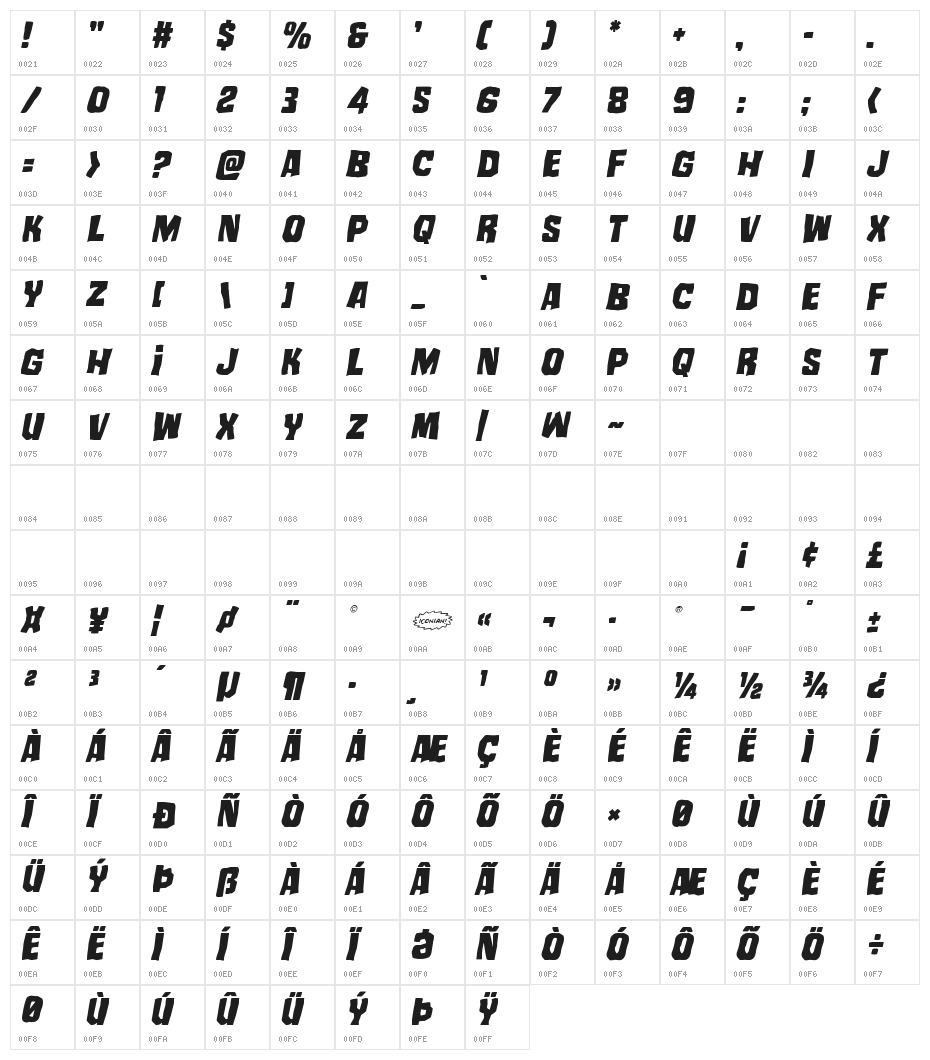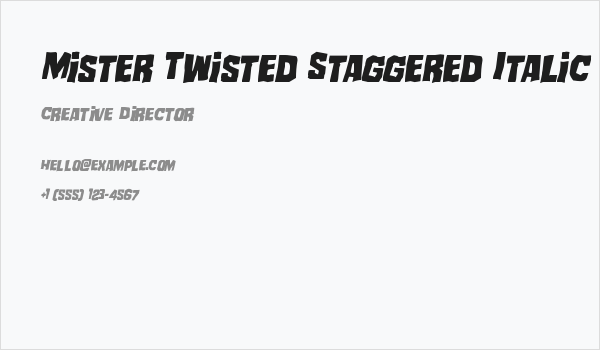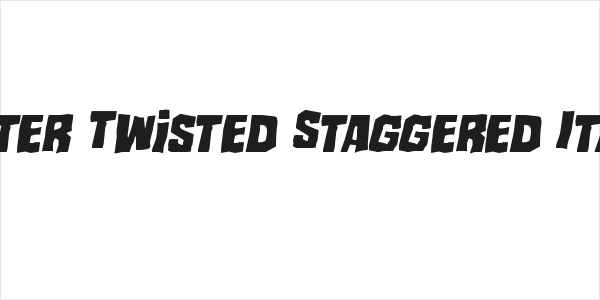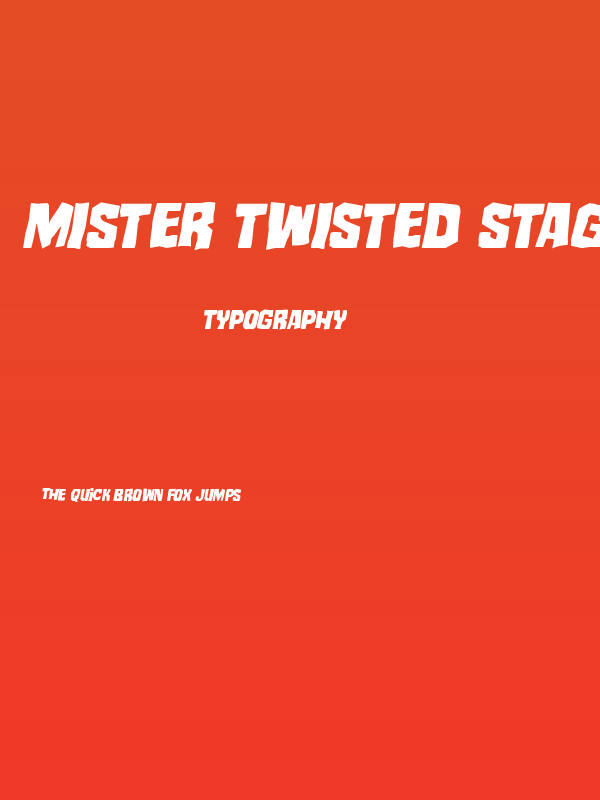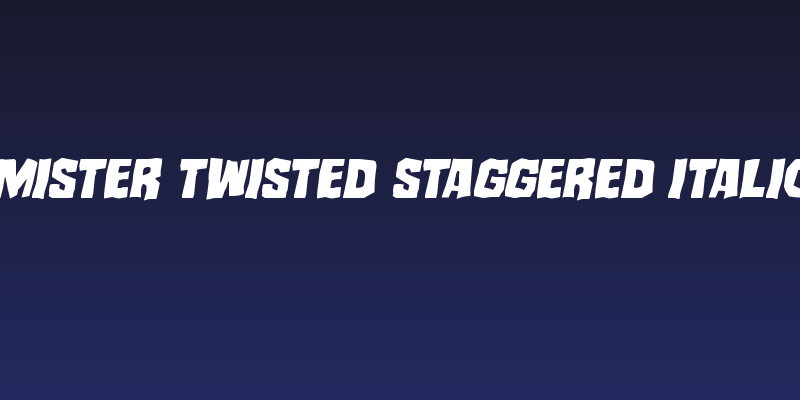
Mister Twisted Staggered Italic Font
Mister Twisted Staggered Italic Description
This font features a bold and dynamic style with a twisted, staggered appearance that gives it a unique and eye-catching look. The characters are heavily stylized with irregular edges and a slanted, italicized form, creating a sense of movement and energy. The uppercase and lowercase letters maintain a consistent design, while the numbers and special characters follow the same bold and twisted aesthetic. This font is perfect for projects that require a strong visual impact and a touch of creativity.
| Proposed Projects | Ideal for posters, album covers, video game graphics, and any project needing a bold, creative touch. |